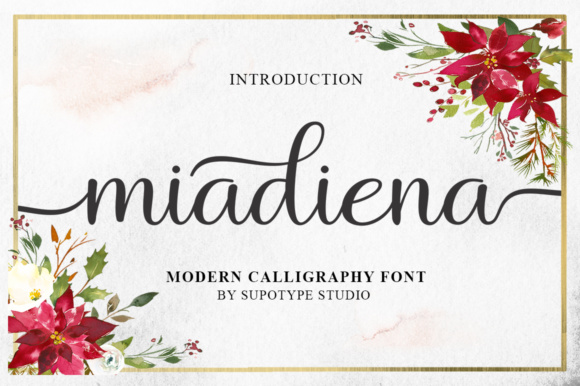
Immerse yourself in the enchanting world of Miadiena, a script font that will make your words dance with captivating grace. Inspired by the beauty of calligraphy, Miadiena's flowing strokes and delicate flourishes evoke a sense of timeless elegance.
Whether you're crafting heartfelt wedding vows, evoking whimsical springtime tales, or adding a touch of romance to your designs, Miadiena's versatility knows no bounds. Embrace the magic of this extraordinary script, where each letter becomes a work of art, intertwining seamlessly to create breathtaking visual masterpieces.
With Miadiena's allure, you'll effortlessly elevate your creations, captivating your audience with its mesmerizing charm. Let the strokes of Miadiena become the brush that paints the canvas of your imagination, transforming your words into unforgettable impressions.
Indulge in the splendor of Miadiena, the perfect font for those who seek to infuse their designs with a touch of enchantment and timeless beauty. Let its graceful curves and elegant flourishes weave a spellbinding tapestry that will leave an everlasting impact on your projects.